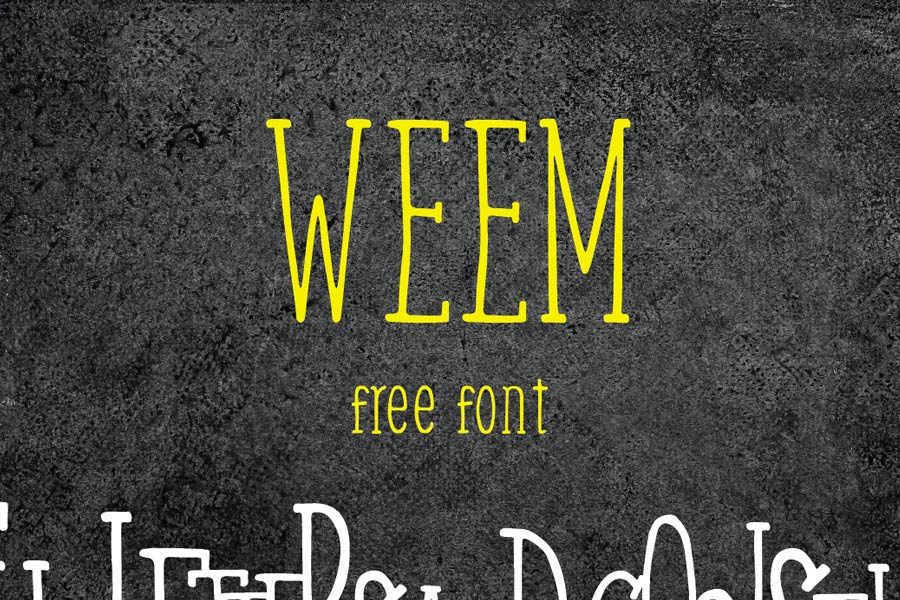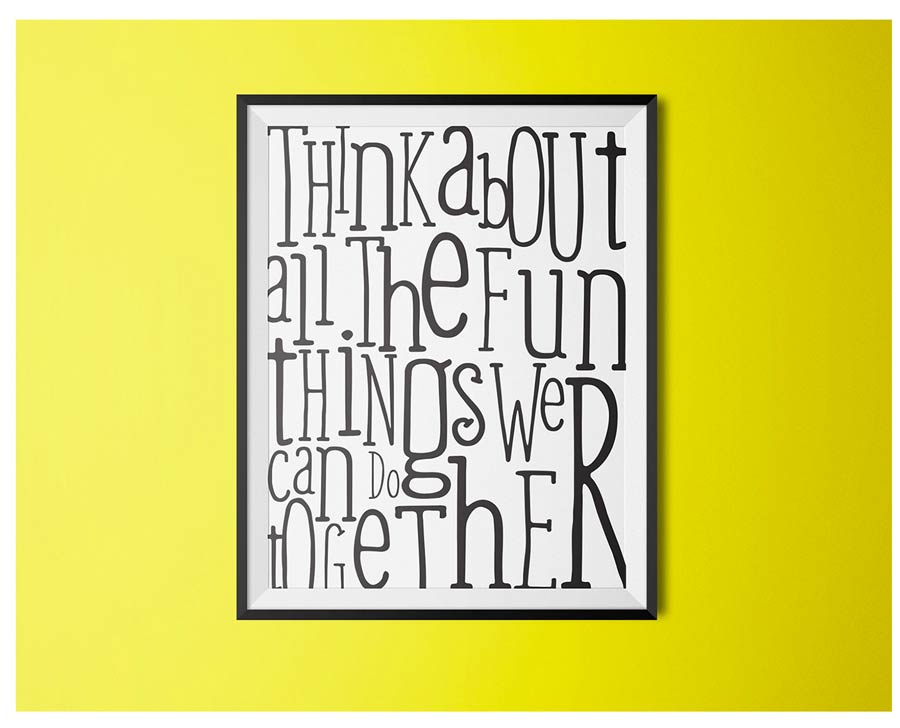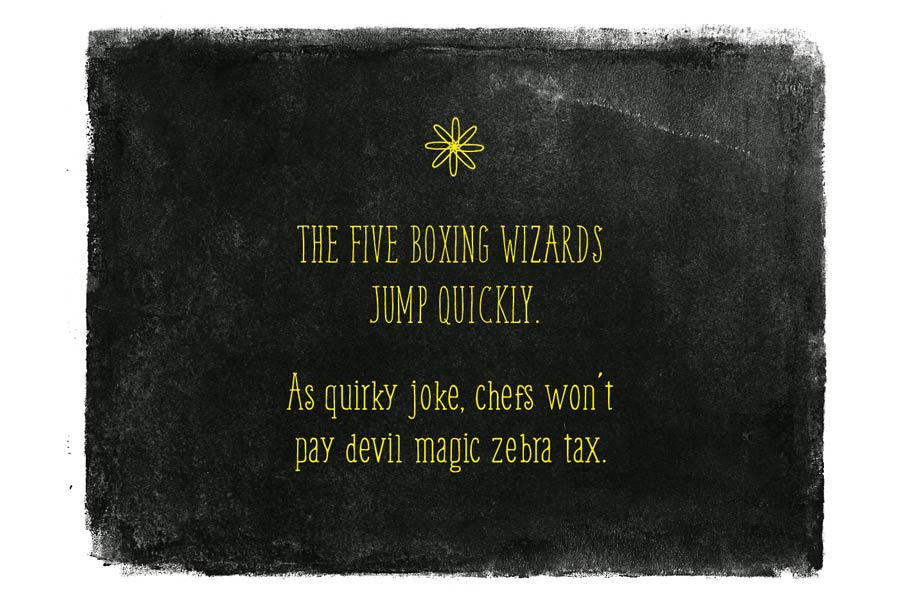
Weem is a serif handwriting font that is free to download. It is playful, quirky and yet tidy, makes this font versatile for many different kinds of design mood and applications. You can play around with this font, for poster designs, packaging designs and more! It’s a great font to add personality to design.
- Designer: Gatis Vilaks
- Category: Handwriting